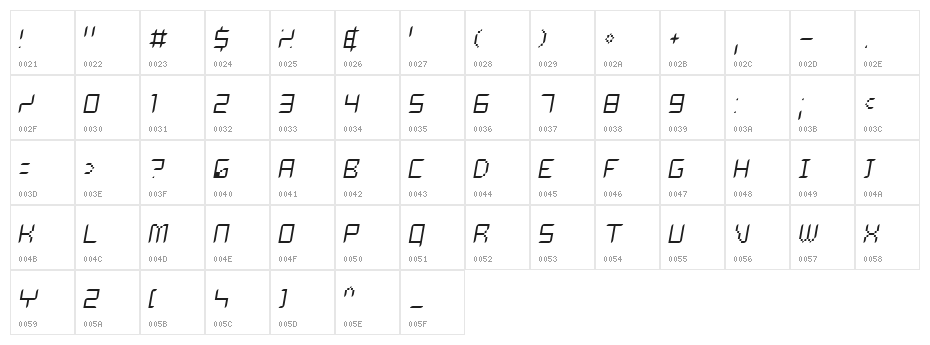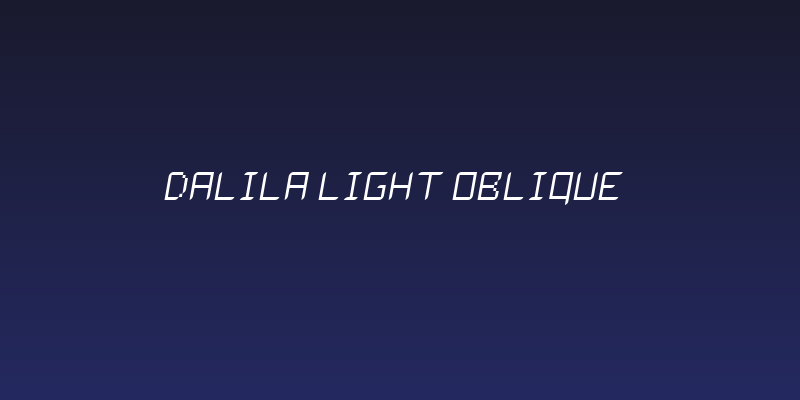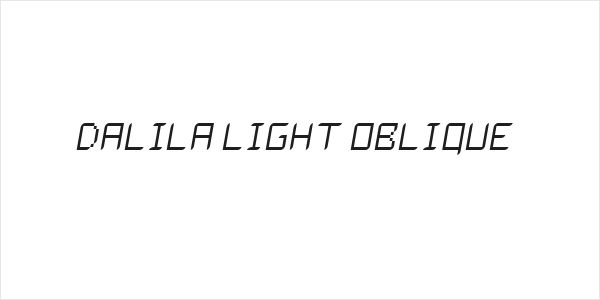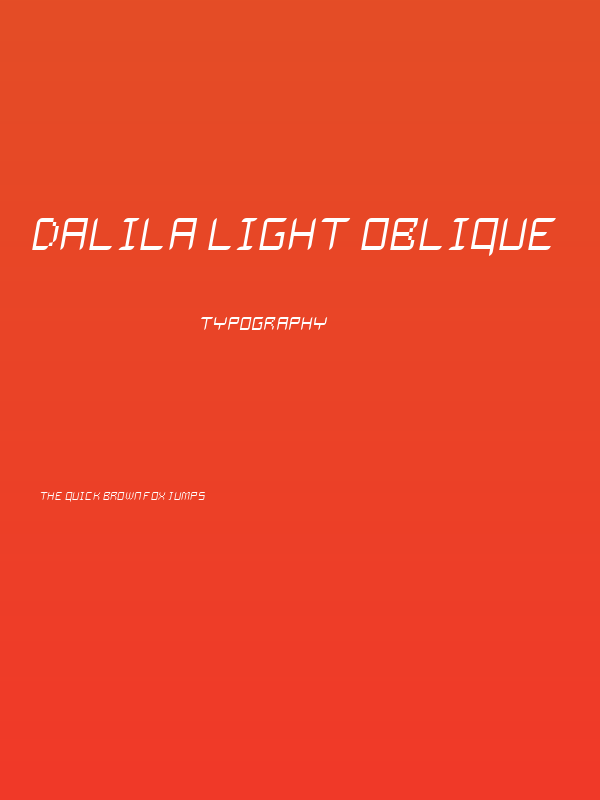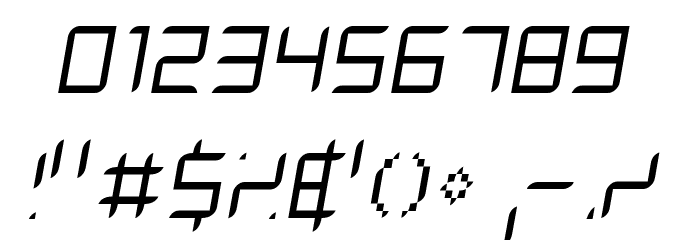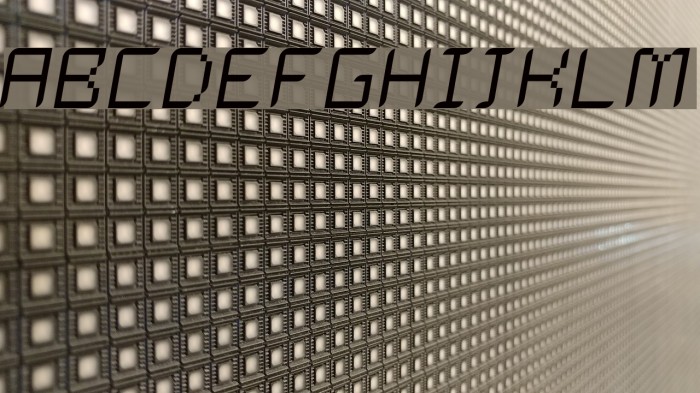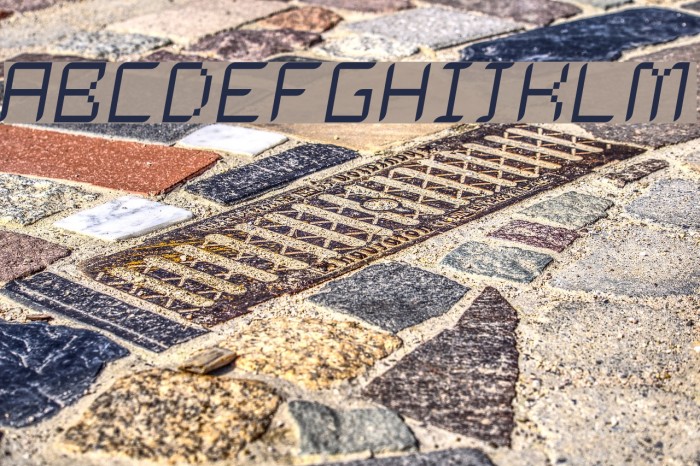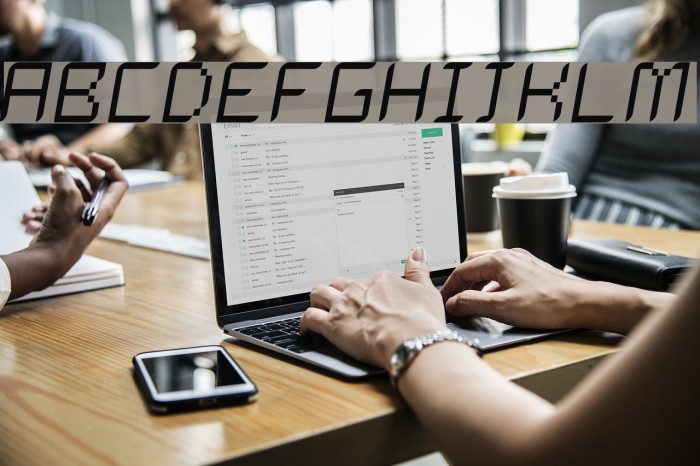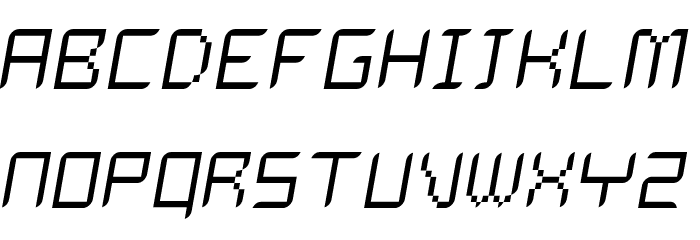
Dalila Light Oblique Font
Dalila Light Oblique Description
This font features a modern and sleek design with an oblique orientation, giving it a dynamic and forward-leaning appearance. The characters are constructed with a geometric precision, featuring sharp angles and clean lines. The overall look is minimalist, with a futuristic touch that makes it stand out. The uppercase and lowercase letters maintain a consistent style, while the numerals and special characters complement the overall aesthetic. This font is ideal for projects that require a contemporary and edgy feel.
| Use Case | Headlines, Logos, Digital Interfaces |
| Proposed Projects | Ideal for technology branding, modern advertising, digital interfaces, and innovative product packaging. |